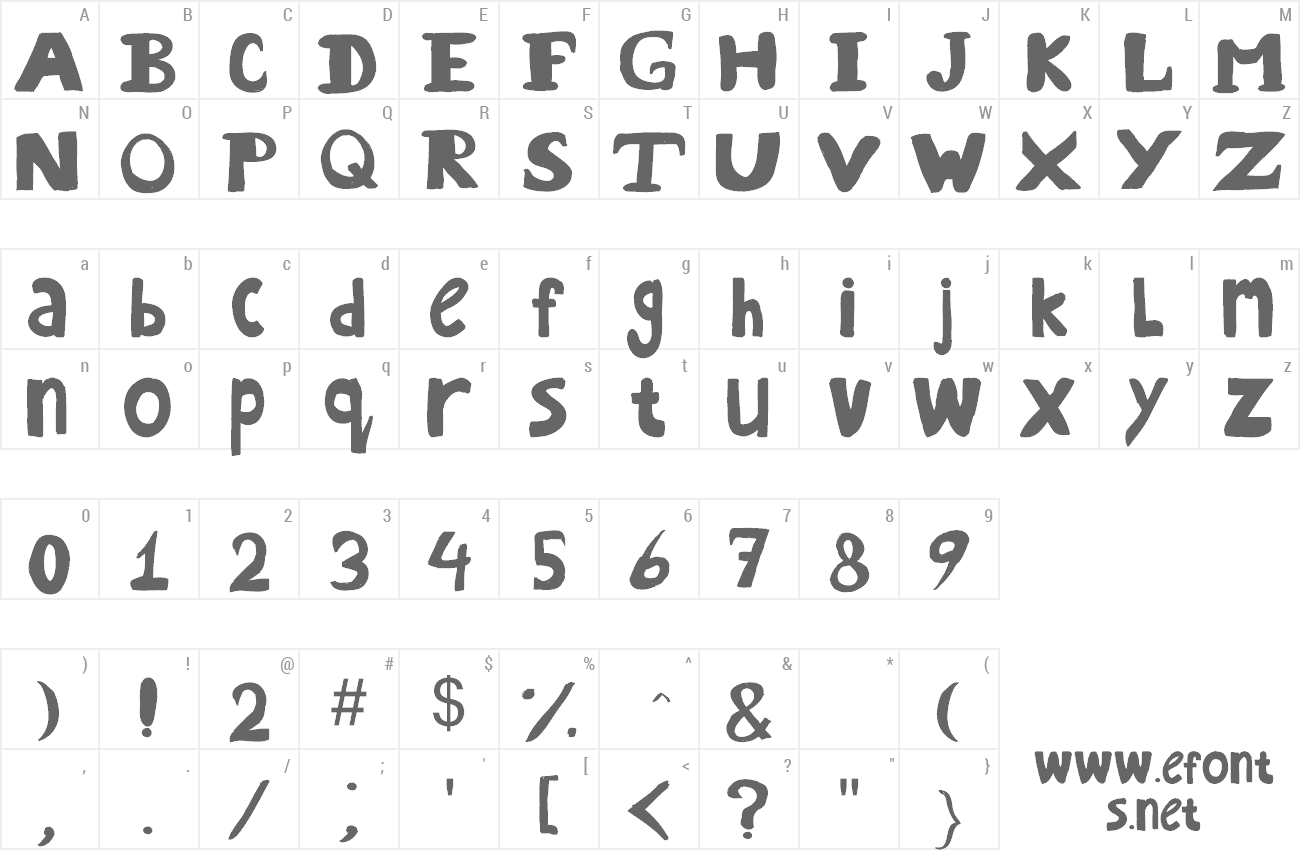
Preview and download Dream Daddy Font. Created by Pim Hoogeveen in Fancy Cartoon styles
| Font name: | Dream Daddy |
| Author: | Pim Hoogeveen |
A very loose, quite decorative font I made it for school, in cooperation for some app-buttons. |